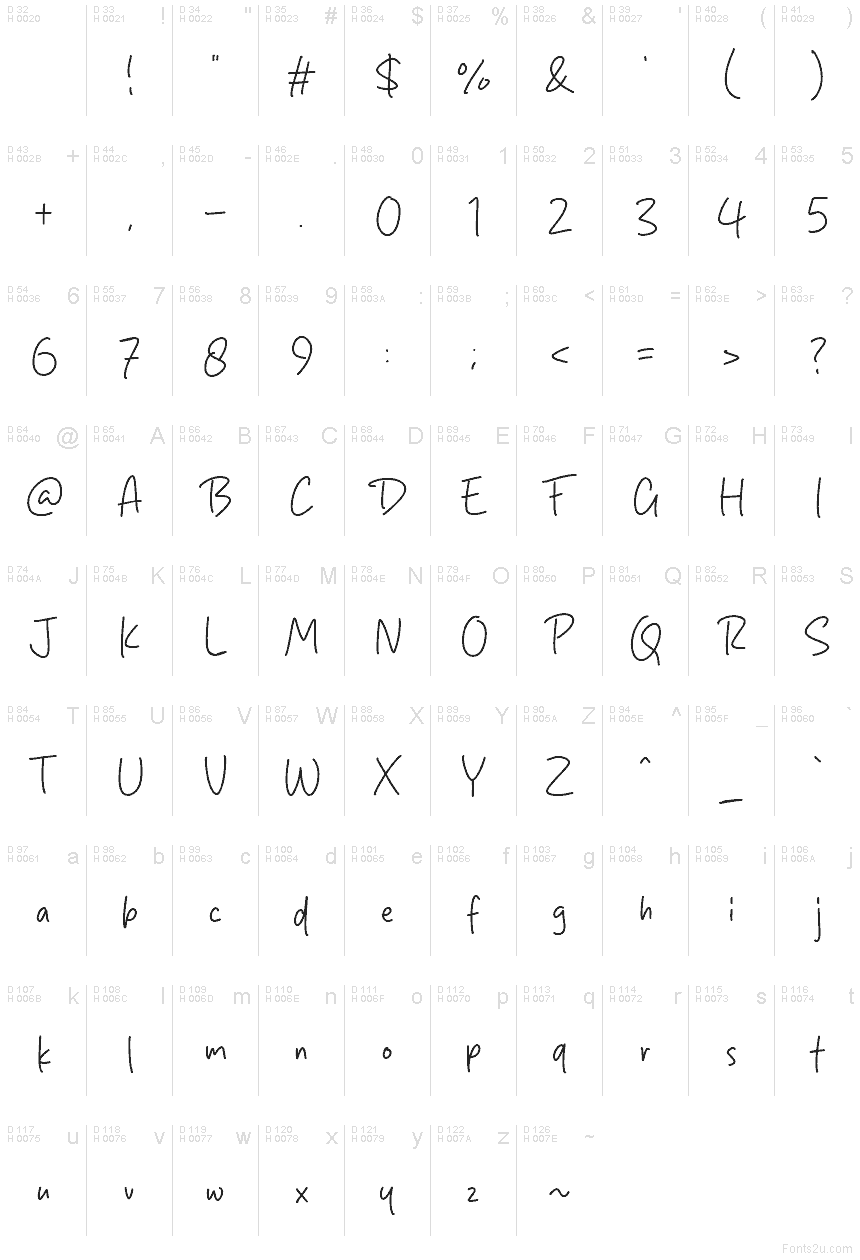
Block Script
Block Script font by MJType is a light handwritten font that features a personal, approachable style. The characters are delicately shaped with irregular curvatures and relaxed endings showing a hint of cursive design. Together, they form words with an informal style and a special human touch. Block Script is the perfect choice for projects looking for a contemporary feel.